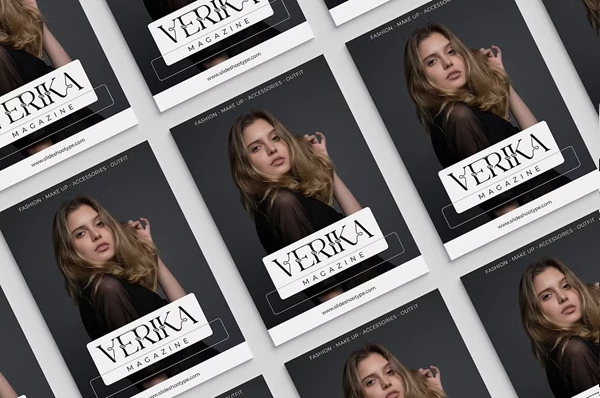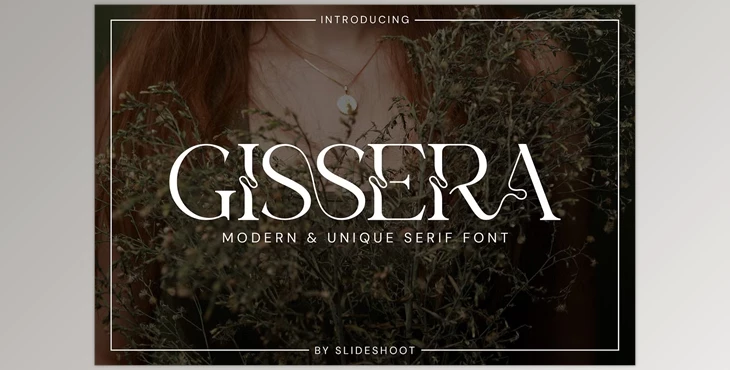
Gissera Serif Font: Introducing Gissera Serif, a refined and versatile font designed to elevate your designs with its balanced, smooth, and elegant appearance. This serif font exudes sophistication and style, making it perfect for a great range of applications, including invitation cards, company logos, movie titles, business cards, book titles, brand names, and more.
"Gissera Serif Font" Samples:
Whether you're crafting a timeless brand identity or adding a touch of refinement to your projects, Gissera Serif conveys sophistication and style.